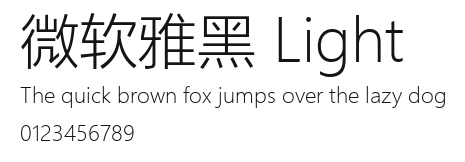
About 微软雅黑 Light.ttc [TrueType Collection]
微软雅黑 Light.ttc [TrueType Collection] is a modern, elegant sans-serif font designed for ultimate readability and visual harmony. Perfect for branding, headlines, web design, and print materials.